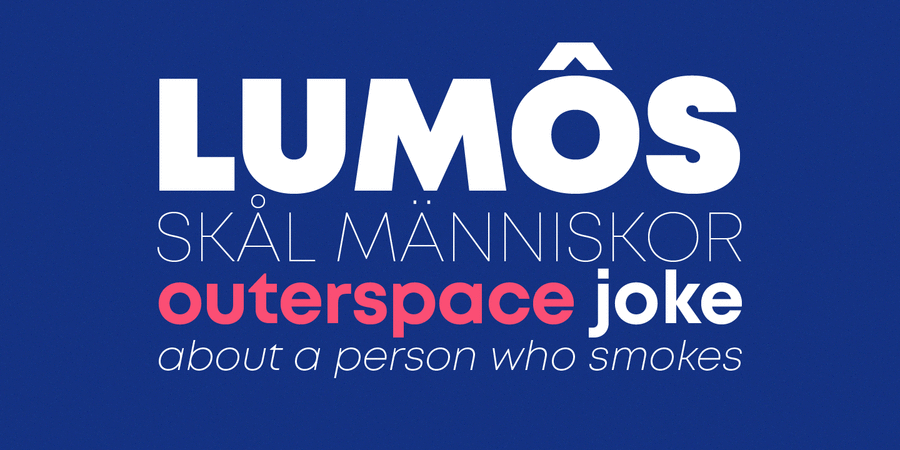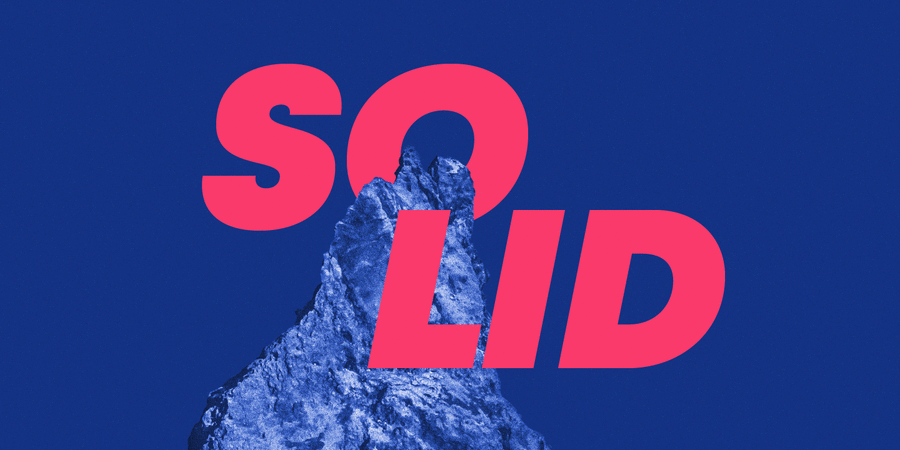
About MontMont is a geometric sans-serif typeface consisting of 10 weights ranging from Hairline to Black with matching italics. It supports Extended Latin (English), Cyrillic, and Greek — more than 130 languages all together. The balanced characteristic of Mont with unique details, such as the pointed “t” and the prominent x-height makes it perfect for strong headlines and outstanding logos, but also suitable for long text. Mont comes with a range of OpenType features — including tabular figures, advanced typographic features such as ligatures, fractions, case-sensitive forms, superscripts, subscripts etc. The typeface versatility and merits make it easy to confront any graphic design challenge — web, print, motion graphics etc. 2 Mont FREE DEMO fonts available. OpenType Features: Stylistic Alternates, Common Ligatures, Contextual alternates, Localised Forms, Tabular Figures, Diagonal Fractions, Denominator, Numerator, Superscripts, Case Sensitive Forms Ordinals. The typeface was designed by Svetoslav Simov and Mirela Belova in 2018.
Features of font family MontThe hit of the decade:
Associations for font family MontTypeface personality and character: